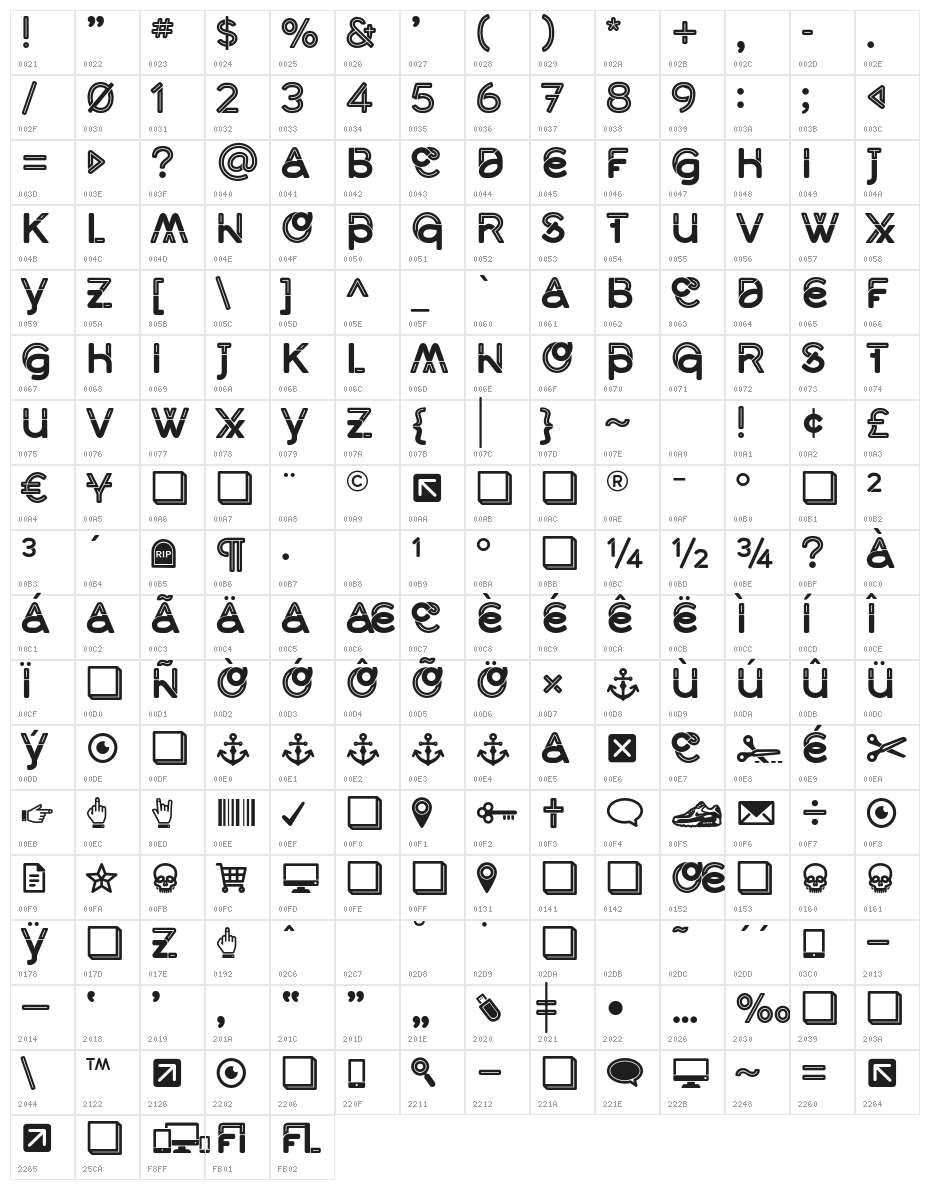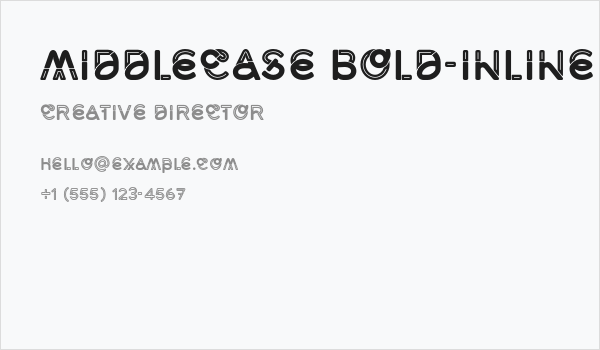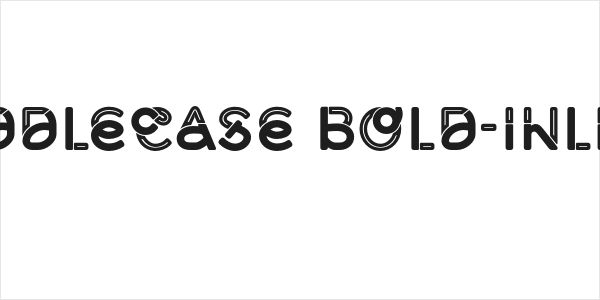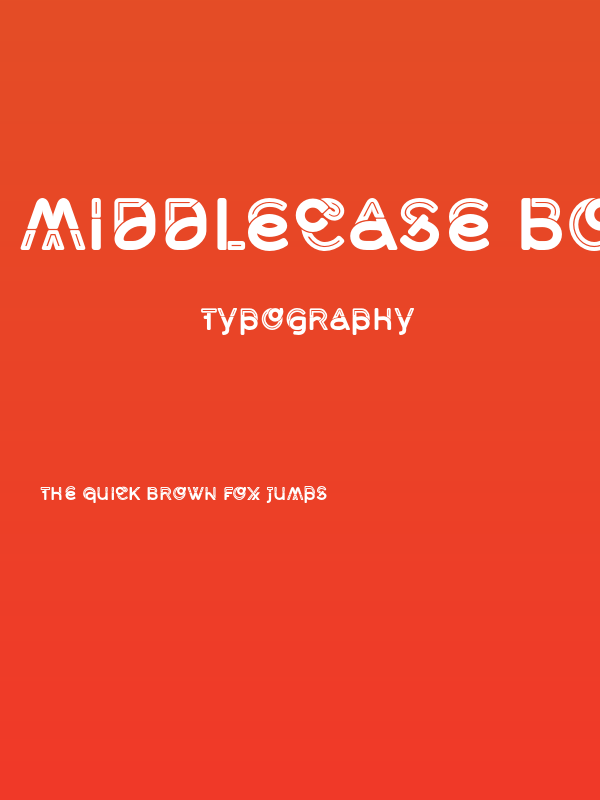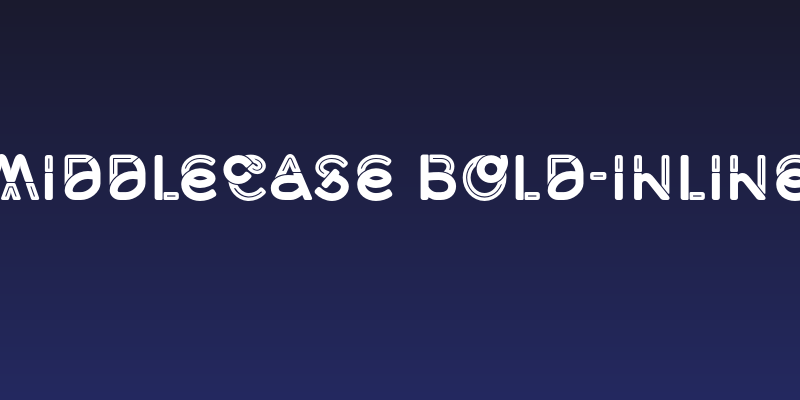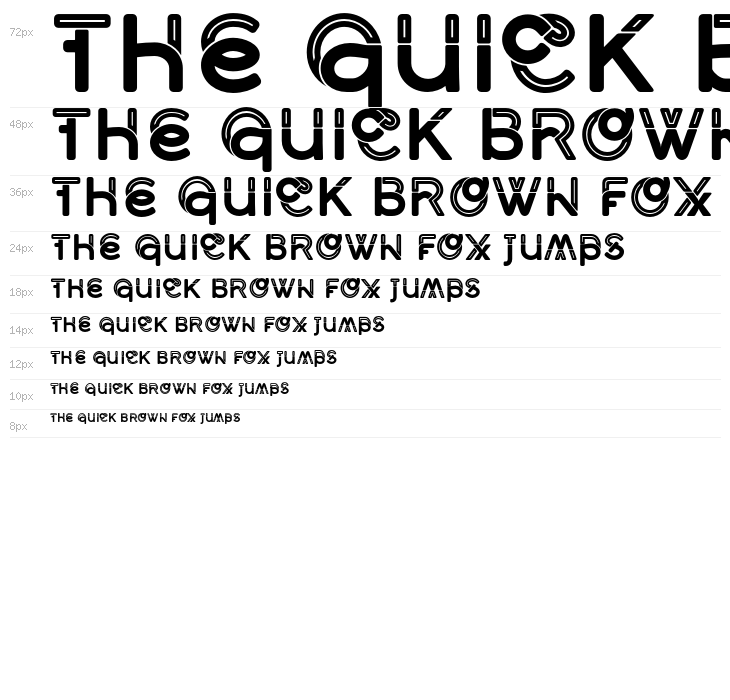
Middlecase Bold-Inline Font
Middlecase Bold-Inline Description
This font features a bold, inline style with a modern and decorative flair. Each character is designed with a thick outline and an inline cut that adds depth and dimension. The uppercase and lowercase letters maintain a consistent width, giving the font a uniform appearance. The numerals and special characters are crafted with the same attention to detail, ensuring a cohesive look across all glyphs. The font's unique design makes it stand out, with its bold strokes and inline details creating a striking visual impact. Ideal for projects that require a touch of modernity and boldness, this font is perfect for making a statement.
Proposed ProjectsIdeal for branding, posters, headlines, and any design project that requires a bold and modern touch.